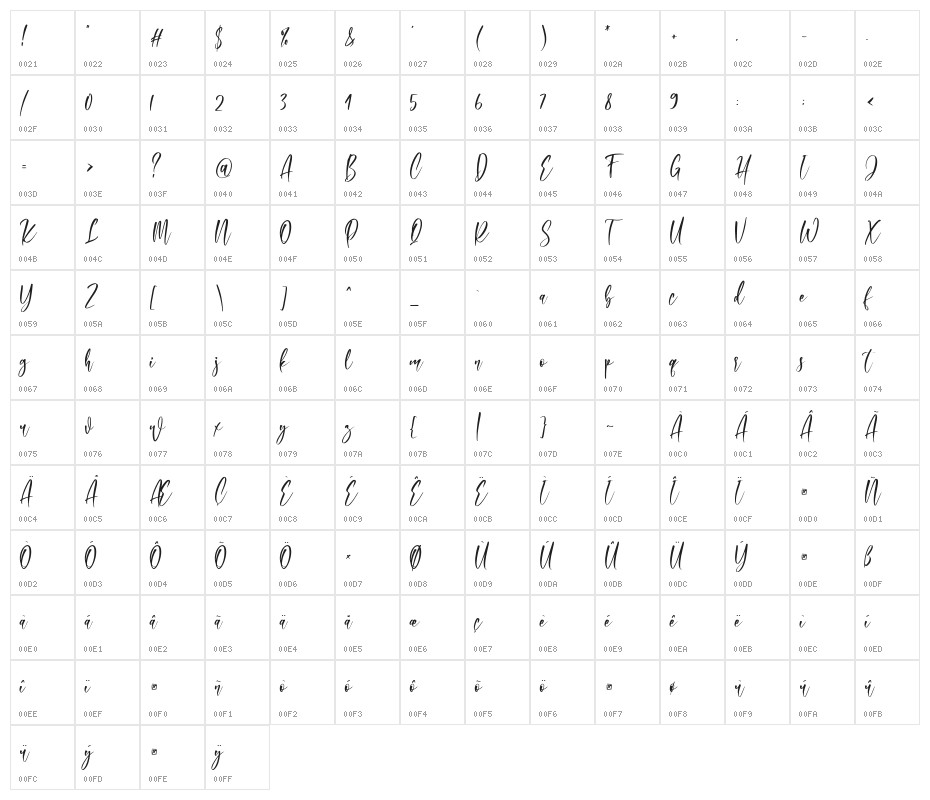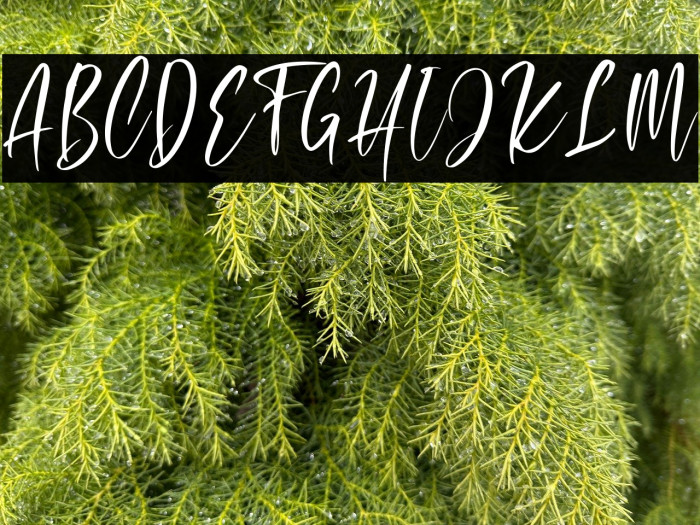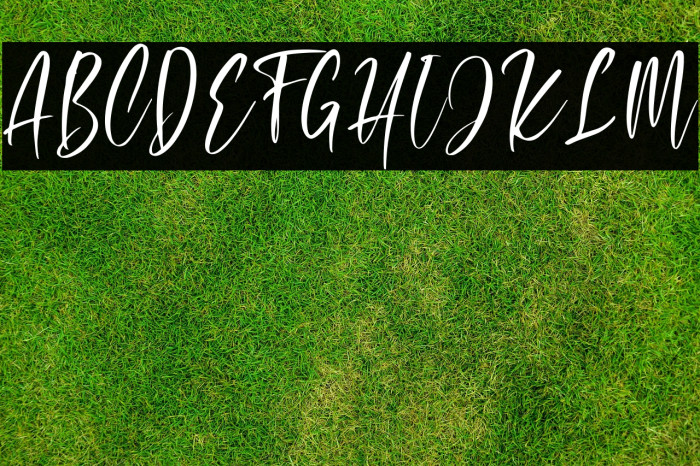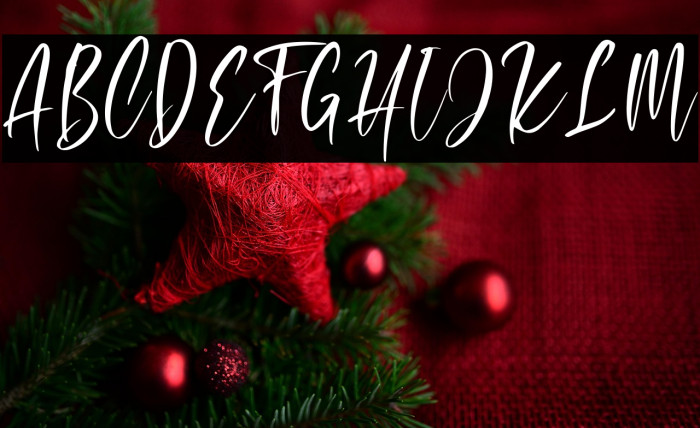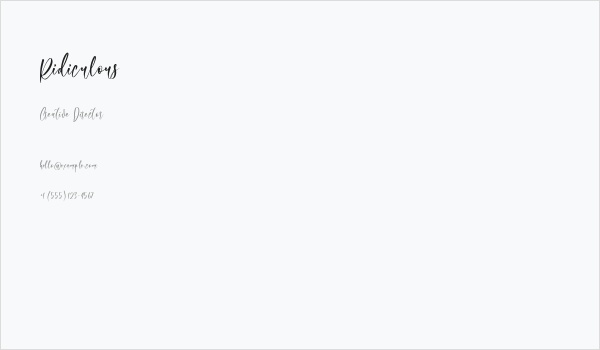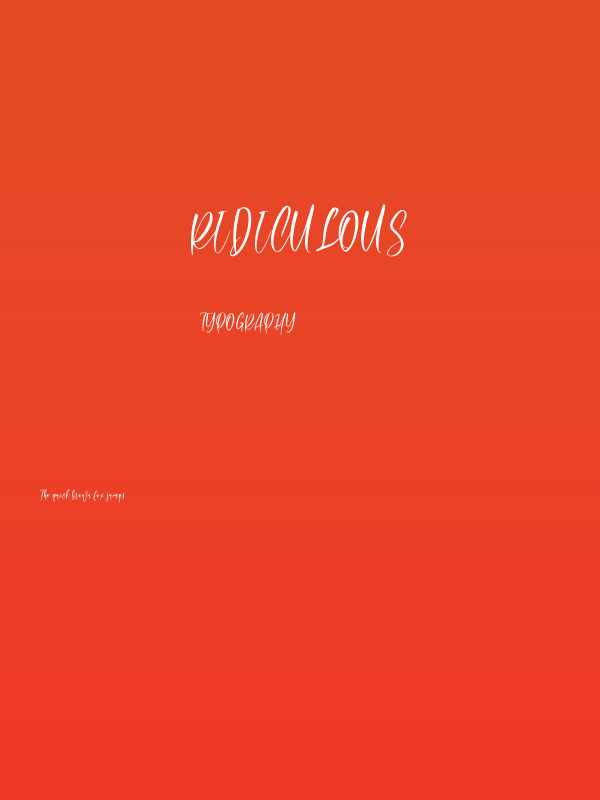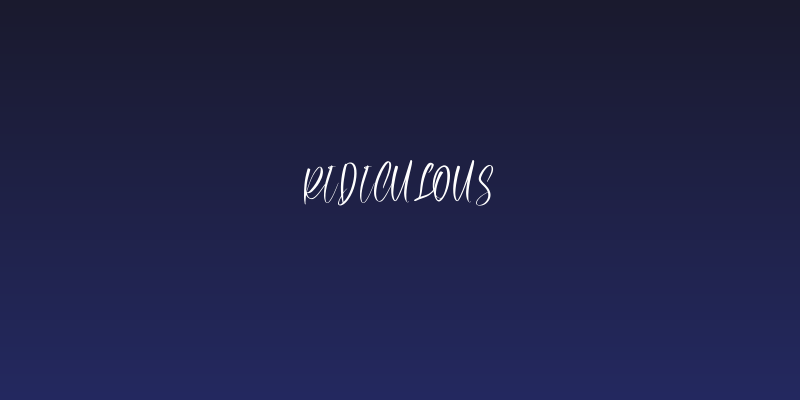
Ridiculous Font
Ridiculous Description
This font exudes a lively and expressive character, featuring fluid, cursive strokes that mimic the elegance of handwritten script. The uppercase letters are bold and sweeping, with a dynamic flair that adds a sense of movement and grace. The lowercase letters maintain this fluidity, offering a harmonious blend of curves and loops that enhance readability while retaining a stylish appearance. Numbers and special characters are crafted with the same attention to detail, ensuring consistency across all elements. This font is perfect for projects that require a personal touch, such as invitations, greeting cards, or branding materials that aim to convey sophistication and creativity.